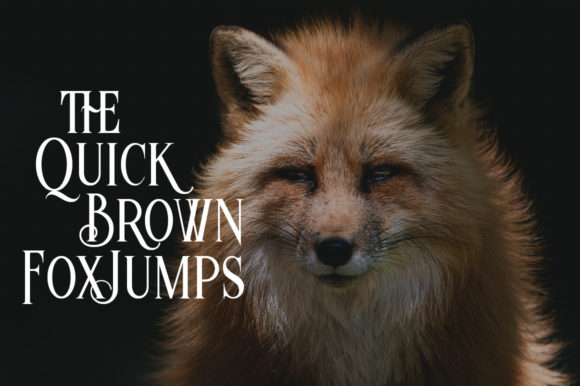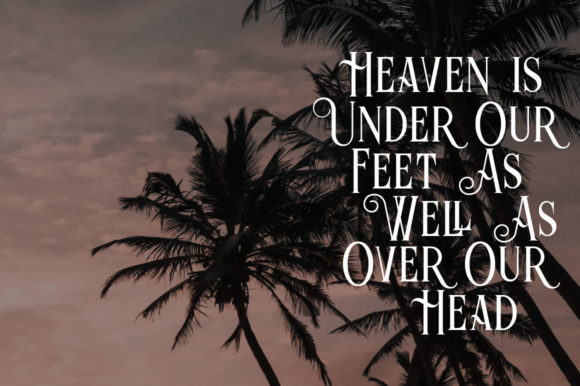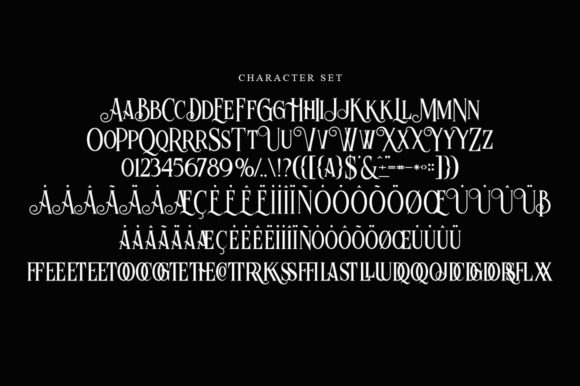
Introduction to Monteradoo Font
Monteradoo is a lovely display font with a classy appearance.
Use it for any design project that requires a personalized appearance .
Key Features of Monteradoo Font
Why Choose Monteradoo Font?
Monteradoo Font offers exceptional quality and versatility, making it a valuable addition to your design toolkit. Whether you’re creating for personal projects or commercial use, Monteradoo Font delivers professional results.